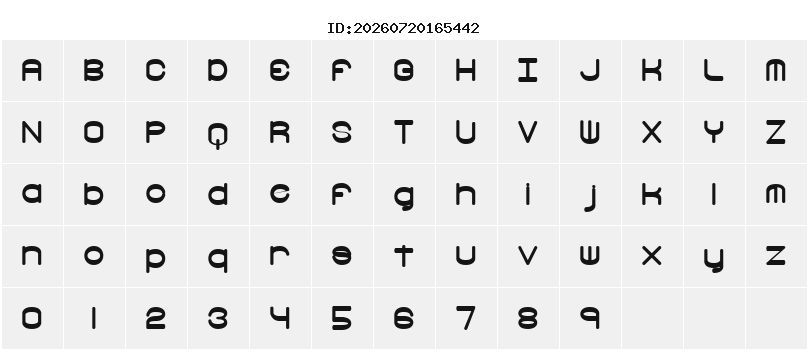
Freak Turbulence (BRK) Preview
• Font Name: Freak Turbulence (BRK)
• Full Font Name: Freak Turbulence -BRK-
About Freak Turbulence (BRK).ttf
Freak Turbulence (BRK).ttf is a modern, elegant sans-serif font designed for ultimate readability and visual harmony. Perfect for branding, headlines, web design, and print materials.